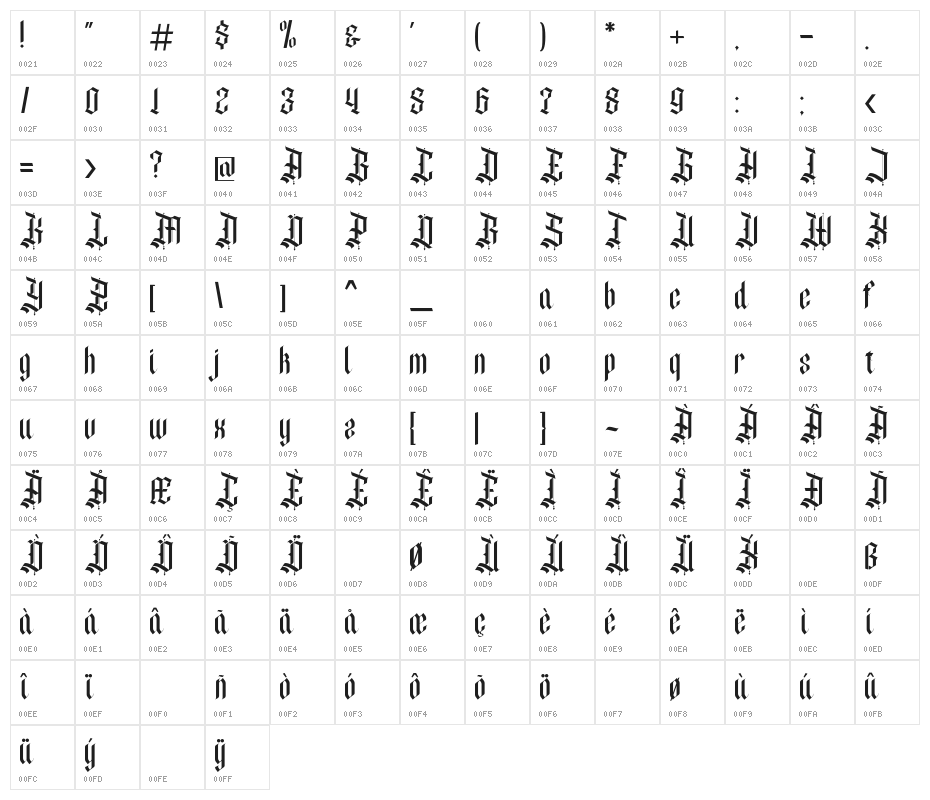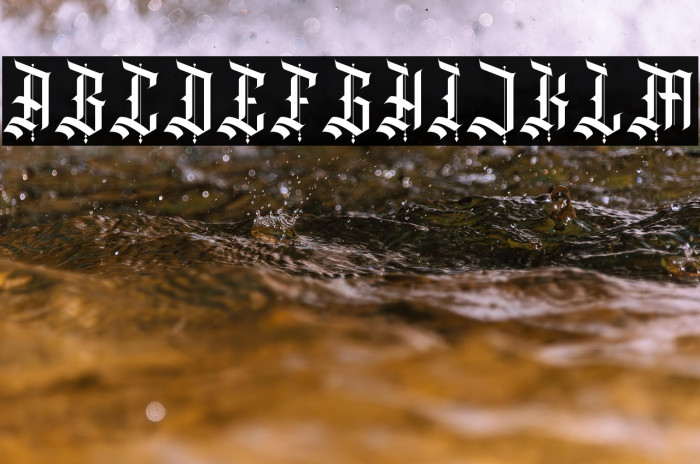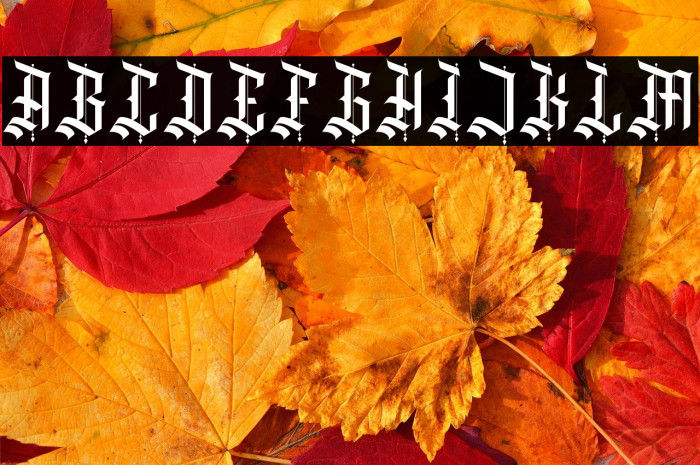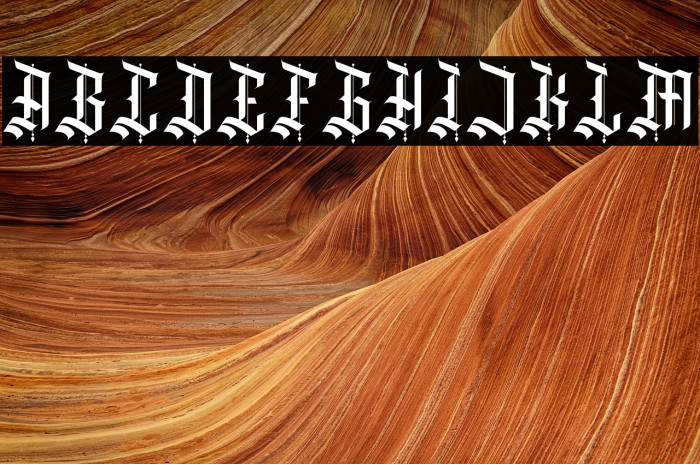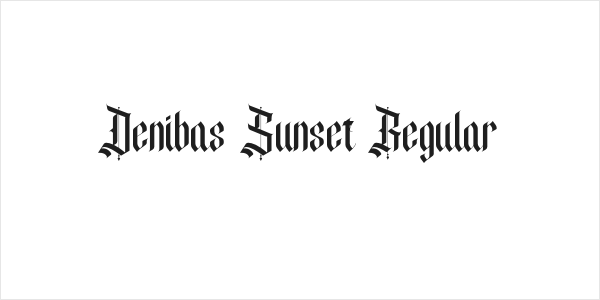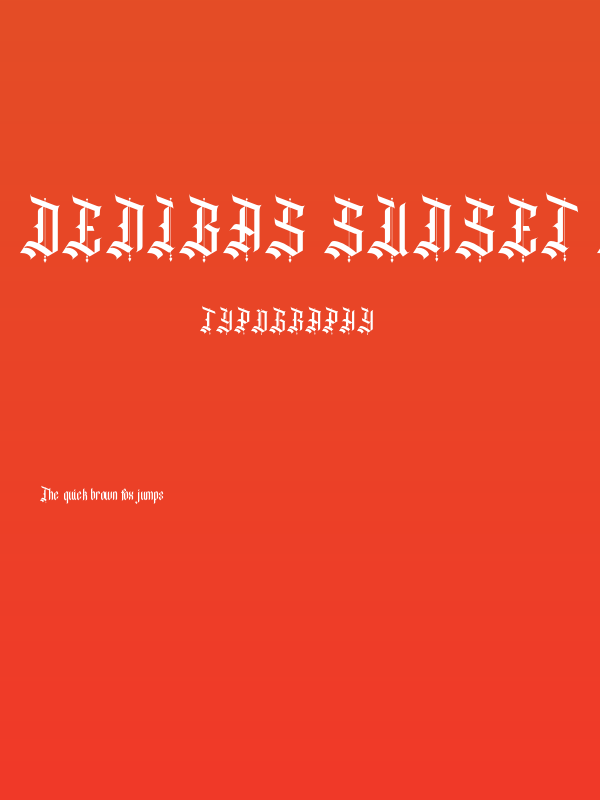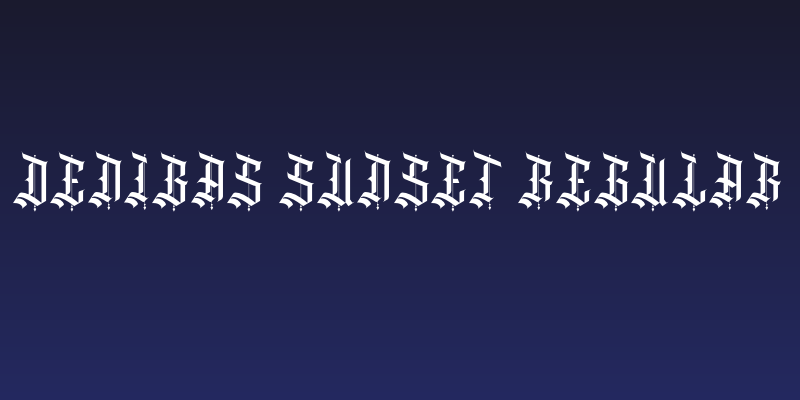
Denibas Sunset Regular Font
Denibas Sunset Regular Description
This font features a bold and dramatic blackletter style, reminiscent of traditional Gothic script. The characters are sharply angular with pronounced serifs and intricate detailing, giving it a historic and authoritative appearance. The uppercase letters are particularly ornate, with elaborate strokes and flourishes, while the lowercase letters maintain a consistent style with slightly less embellishment. Numbers and special characters follow the same aesthetic, ensuring a cohesive look across all glyphs. The font's strong visual impact makes it suitable for projects that require a sense of tradition, formality, or medieval flair.
| Use Case | Logos, Headlines, Decorative purposes |
| Proposed Projects | Ideal for use in certificates, logos, book covers, posters, and any design requiring a medieval or traditional aesthetic. |